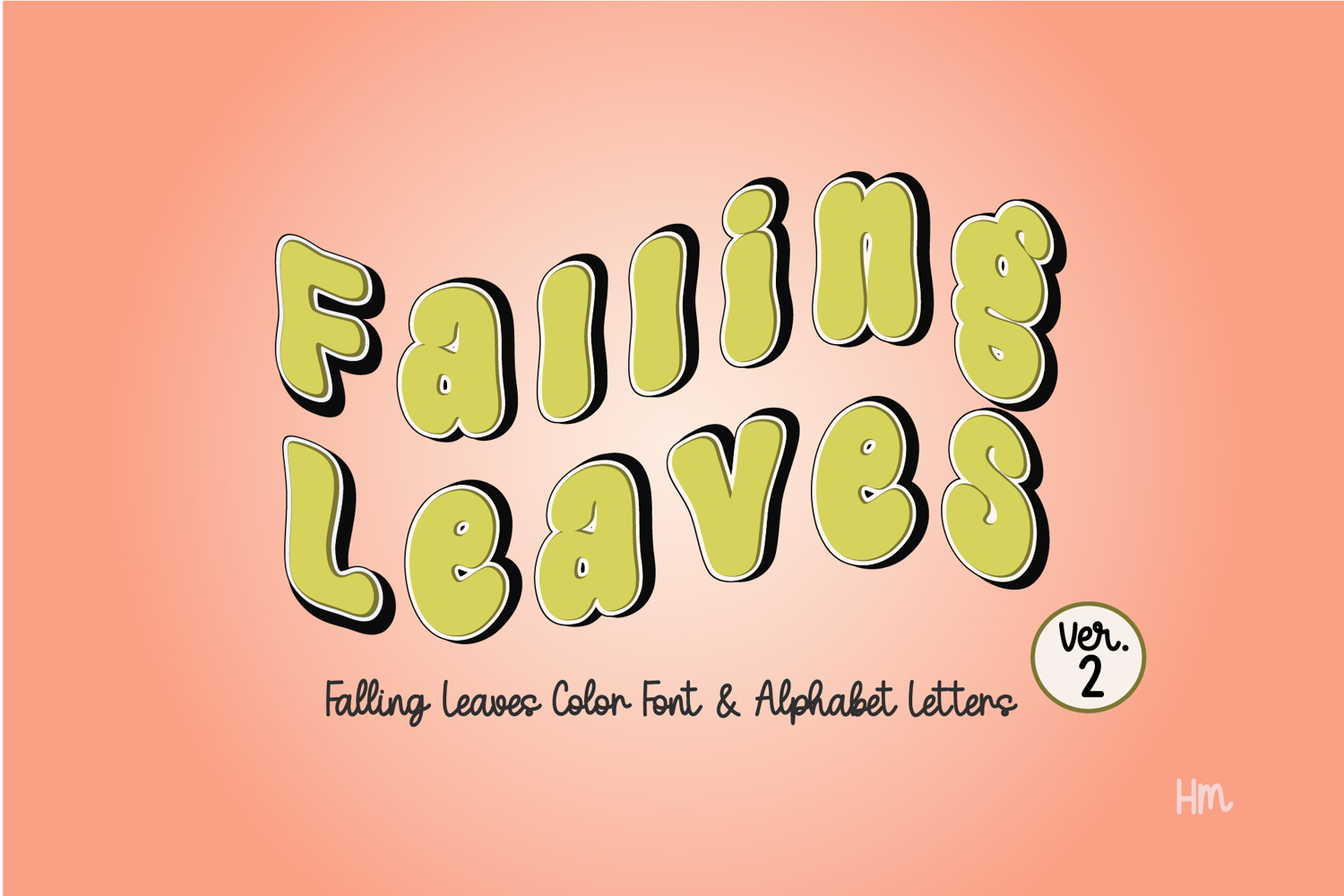
Falling Leaves Ver.2
Bring warmth and charm to your autumn creations with this Cozy Fall Color Font. Designed with a retro bubble style in rich fall colors and bold black outline, it’s perfect for cozy seasonal crafts and designs.